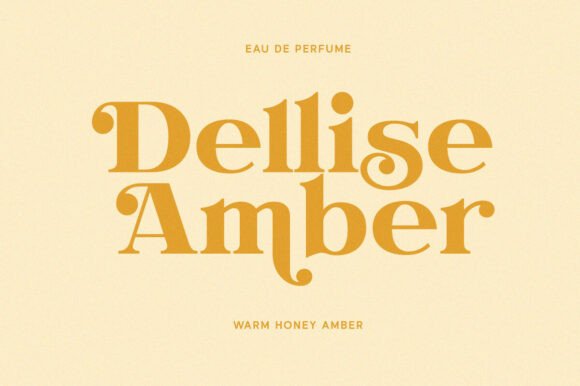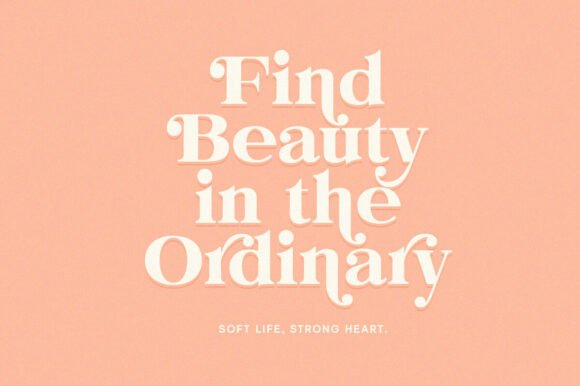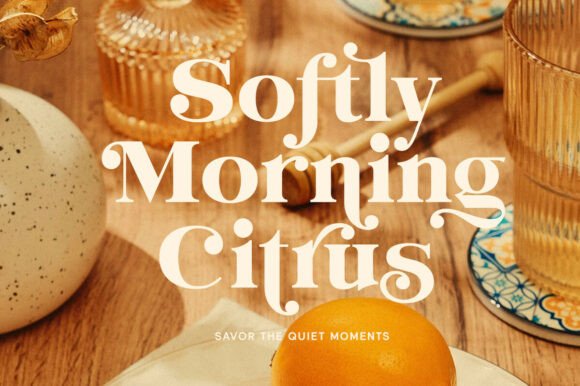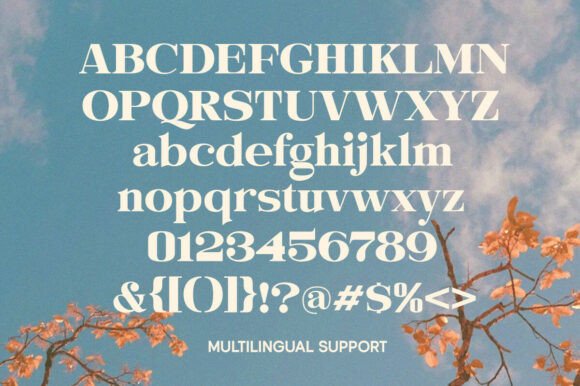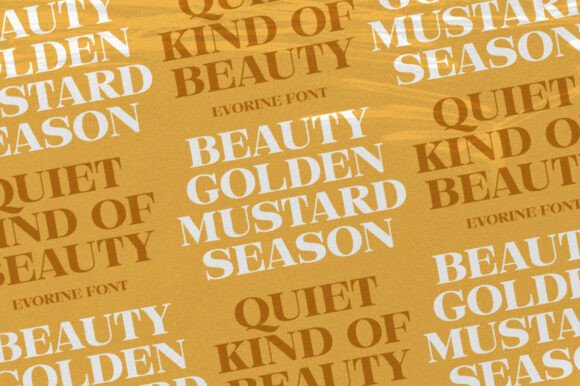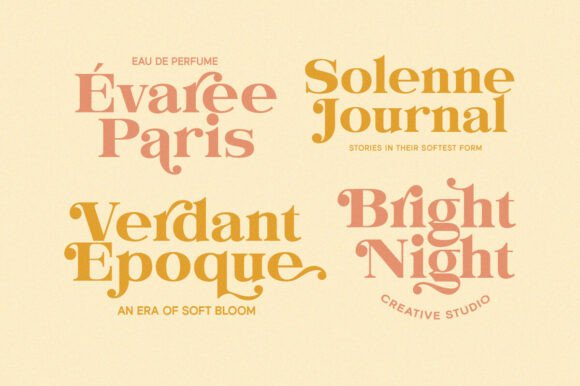
Introduction to Evorine Serif Font
Evorine Serif is a dreamy little statement font with soft curves, bold elegance, and that effortlessly pretty look that feels like golden hour in typography form.
With its high-contrast serif shapes and playful vintage charm, Evรณrine Serif brings a stylish mix of classy and cute โ perfect for fashion branding, cafรฉ menus, wedding invites, beauty packaging, editorial layouts, and aesthetic social posts .
Key Features of Evorine Serif Font